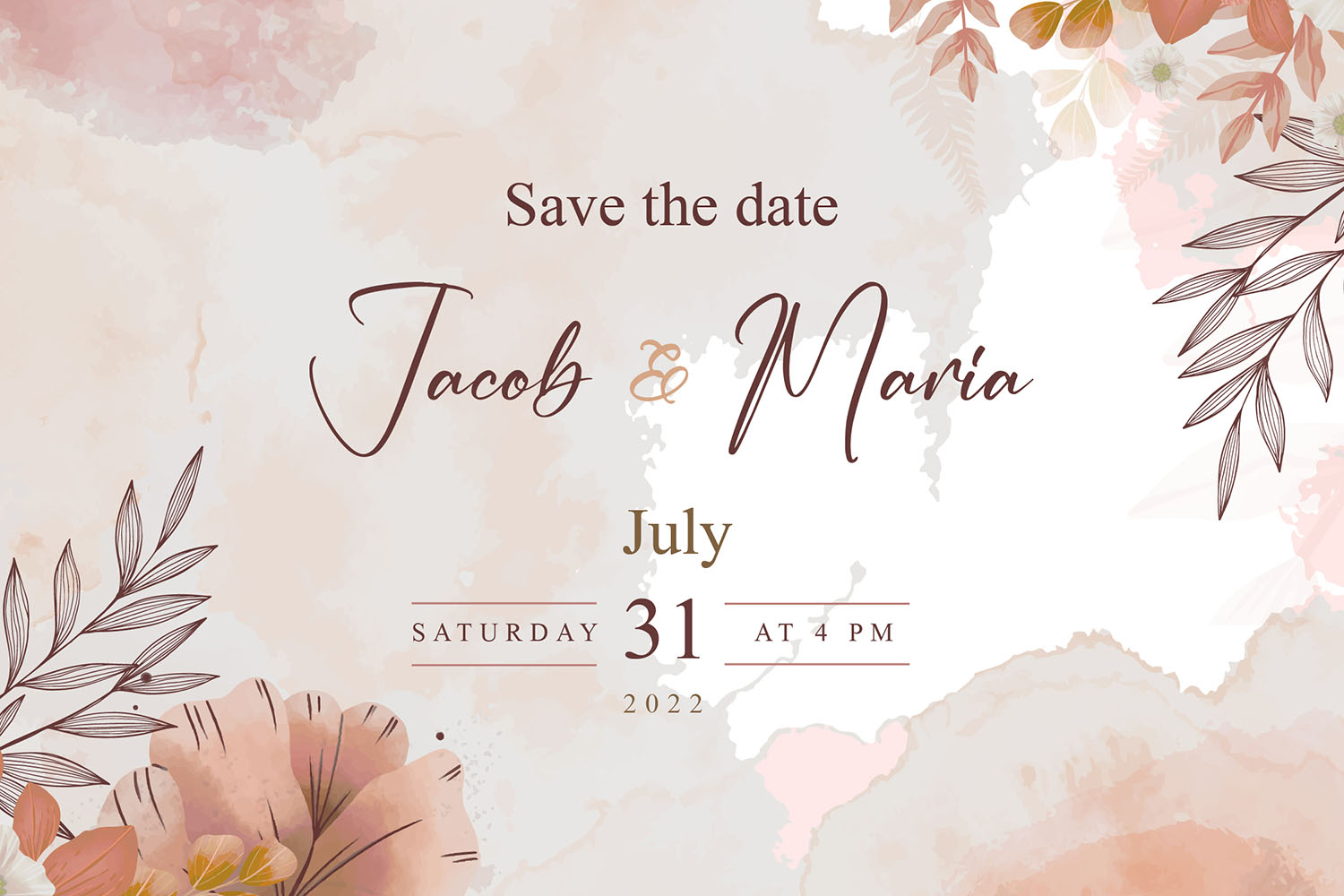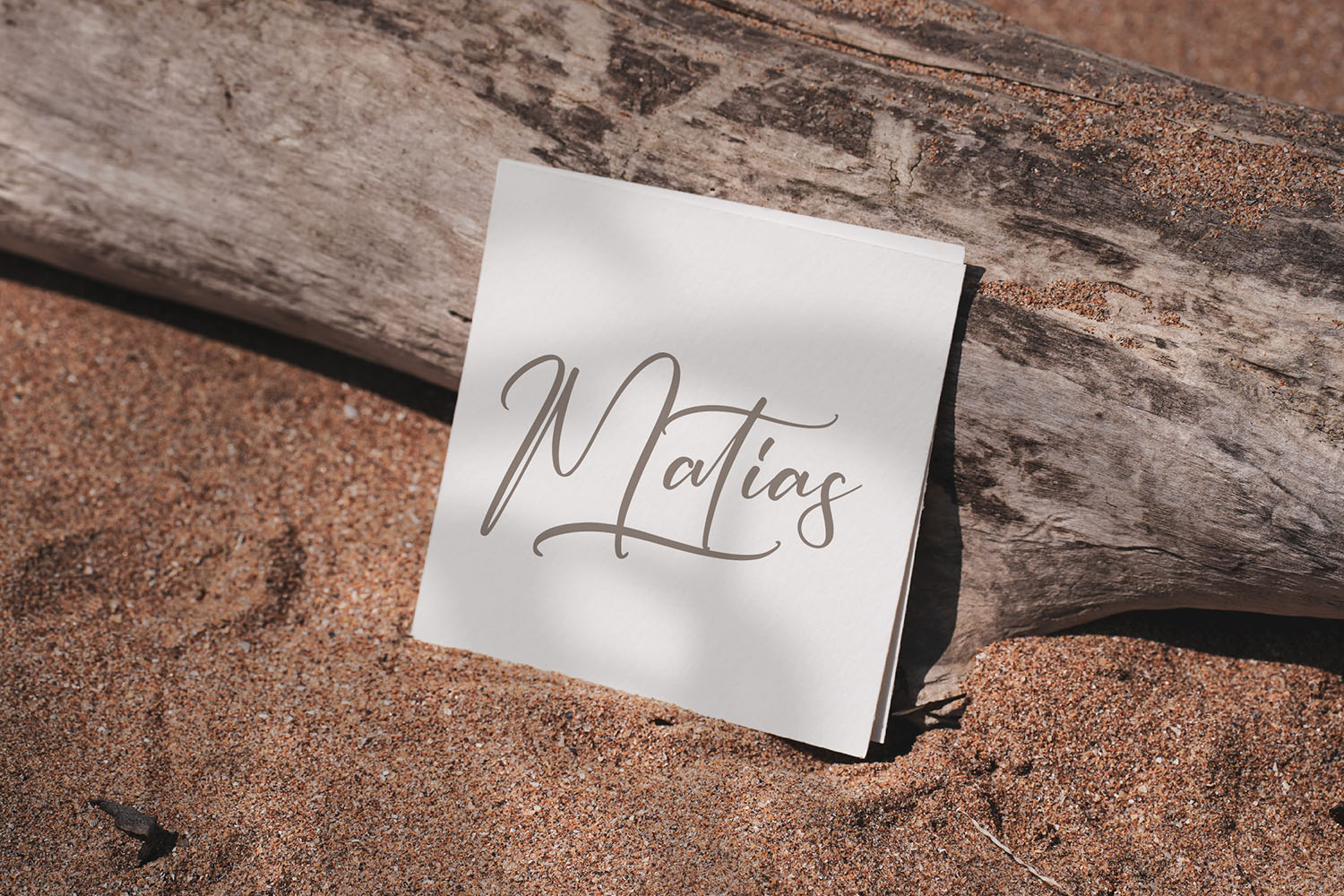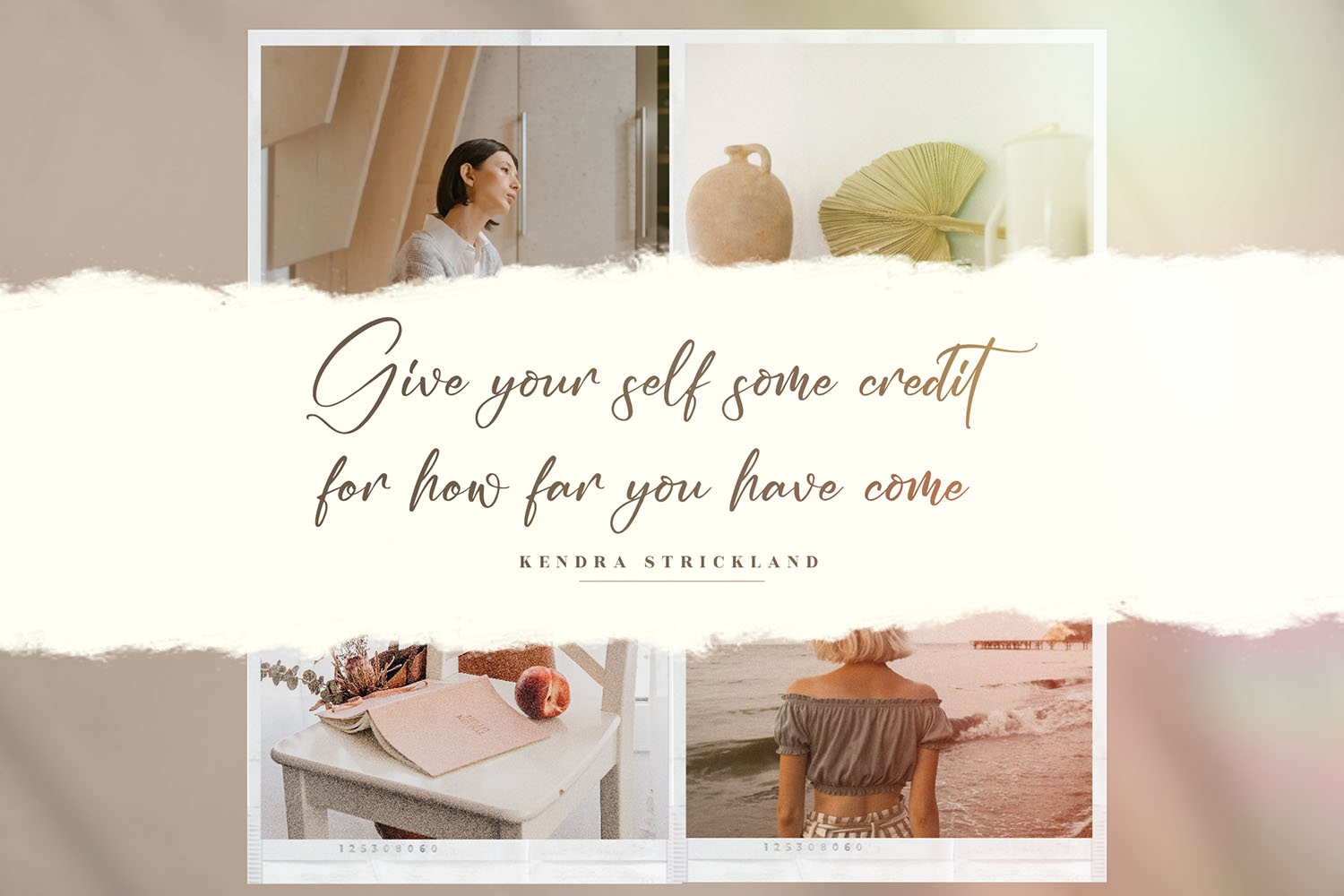
Castillica Free Font
Explore the versatility of Castillica Free Font, a contemporary script font ideal for a myriad of projects. Whether you’re working on logos, branding, homeware designs, product packaging, mugs, quotes, posters, shopping bags, t-shirts, book covers, name cards, invitation cards, greeting cards, labels, photography, watermark, special events, or any other lovely project that craves a touch of beautiful handwriting, Castillica has got you covered. Elevate your designs with this modern script font tailored for all your creative endeavors. This free typeface was designed by a talentedΒ Glorytype Studio. If you like it don’t forget to check out the full version.